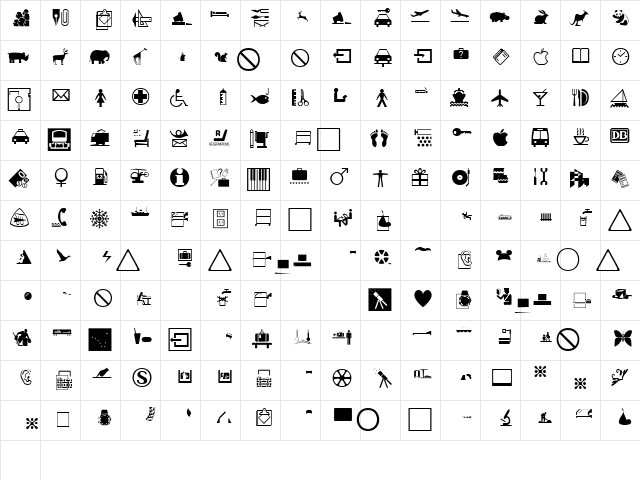
JournalDingbatsSevenSSK Regular
Design Context for JournalDingbatsSevenSSK Typeface
JournalDingbatsSevenSSK takes a measured approach to typography — its balanced proportions and neutral character make it a reliable workhorse for both digital and print work.